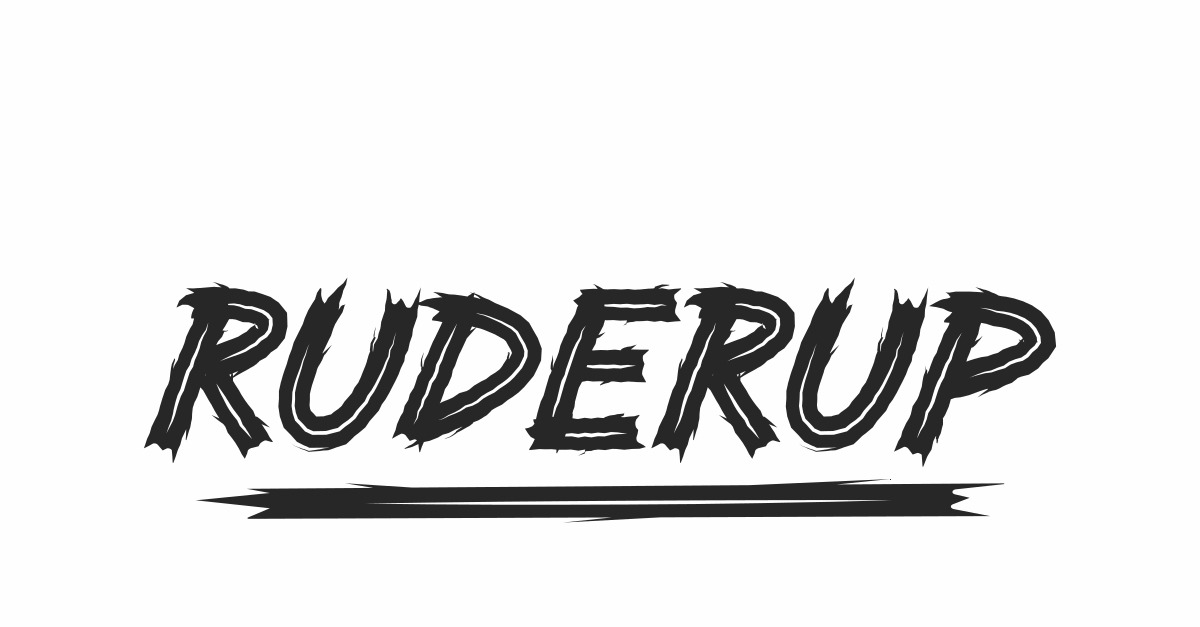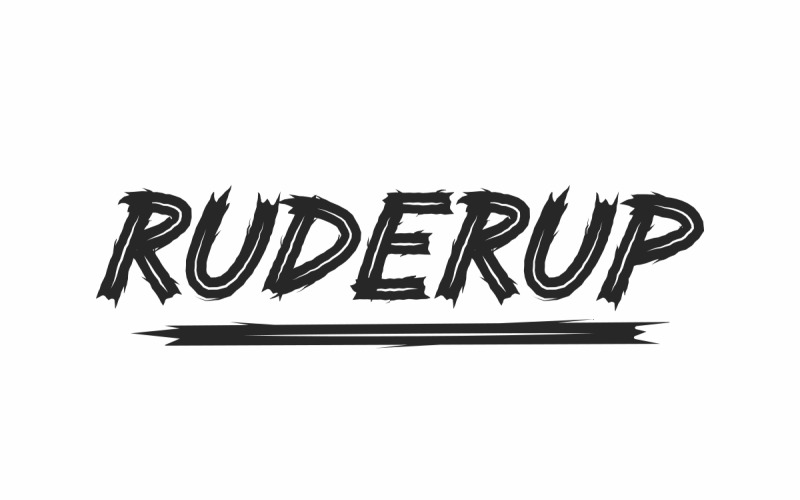
RUDERUP Grunge Font
RUDERUP is a unique display font. Originally made by NihStudio Font Designer : Widiyanti and Suci. On the package you will get :
Handcrafted here in our Studio , Indonesia. RUDERUP will be great for any projects (require extended license) including : branding, logo, stationery, business card, signage, flyer, brochure etc. The them of this font is horror, speed, racing, sport, grunge, rough, complex, unsual etc